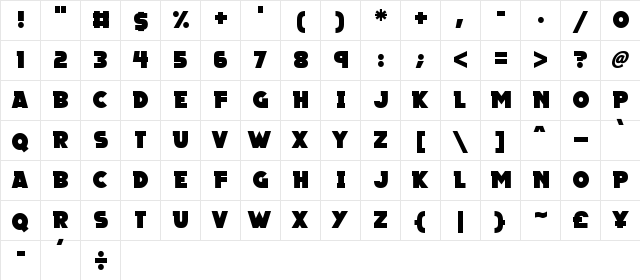
Megalopolis X Regular
Design Context for Megalopolis X Typeface
Megalopolis X offers clean, dependable letterforms without strong stylistic allegiance, making it a practical choice for designers who need flexibility.